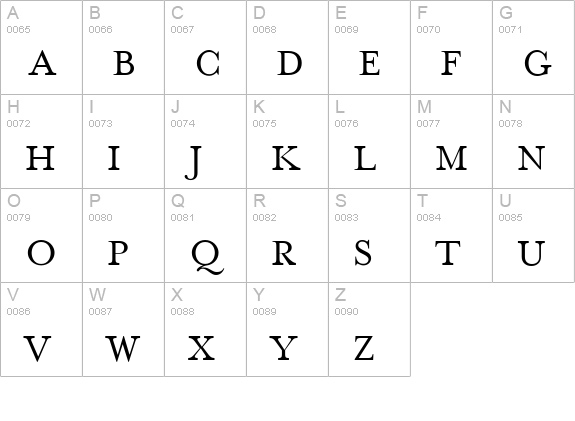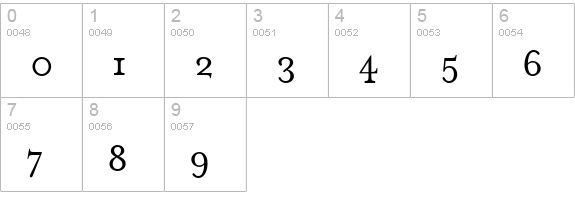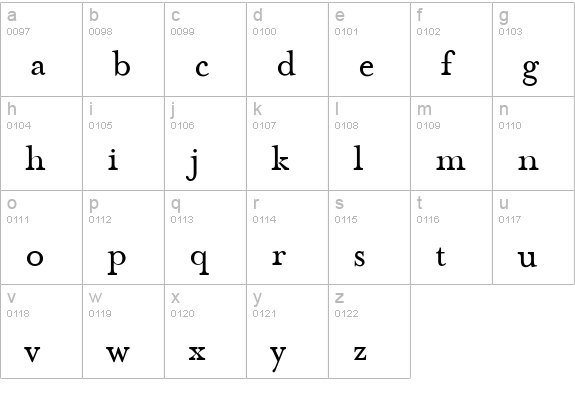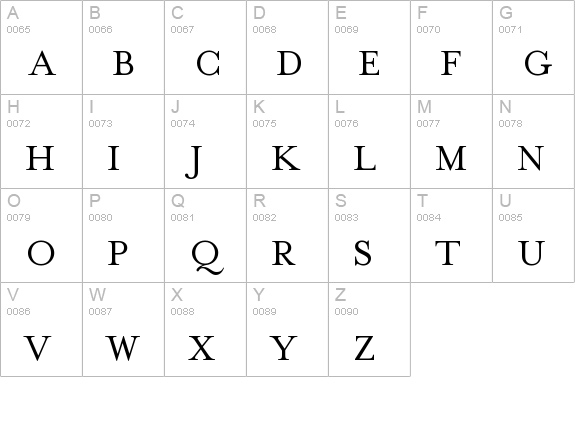
MrsEavesRoman Font Details
MrsEavesRoman is a classic serif font that exudes elegance and sophistication. With its graceful curves and timeless design, this font is perfect for adding a touch of refinement to any project. Its clean lines and balanced proportions make it easy to read, making it ideal for both digital and print applications. What sets MrsEavesRoman apart is that it is available for free download at FontsMarket.com. This means that you can access this exquisite font without any cost, allowing you to enhance your designs without breaking the bank. Whether you're working on a formal invitation, a professional document, or a creative project, MrsEavesRoman is sure to elevate your work to the next level. Don't miss out on the opportunity to add MrsEavesRoman to your font collection. Download it for free today and discover the beauty and versatility of this stunning typeface.